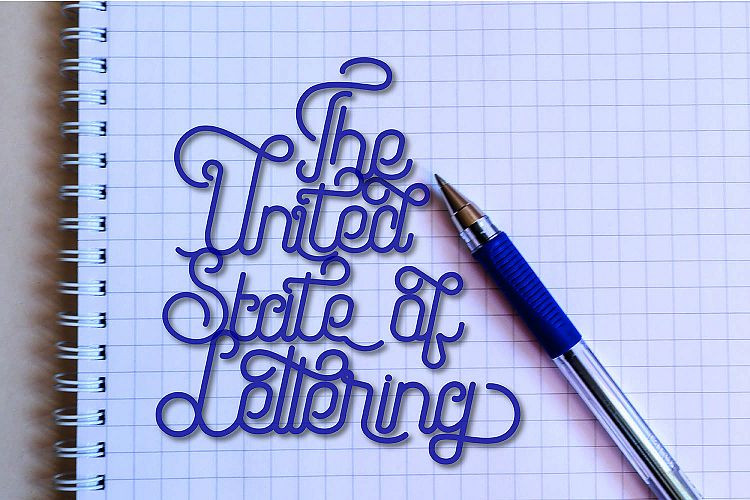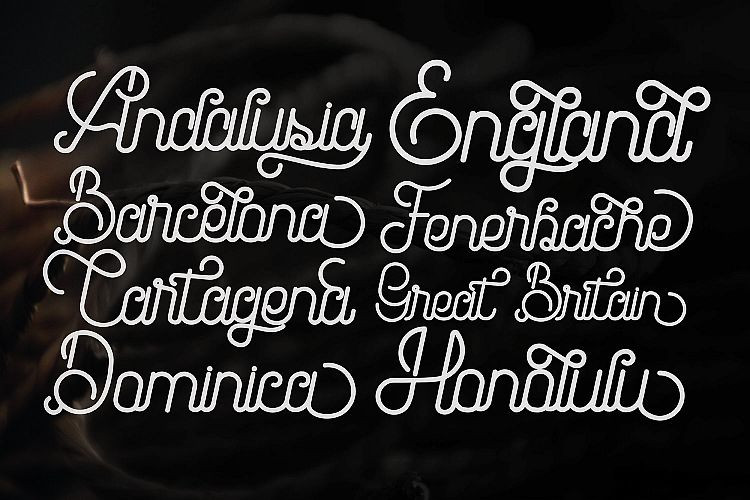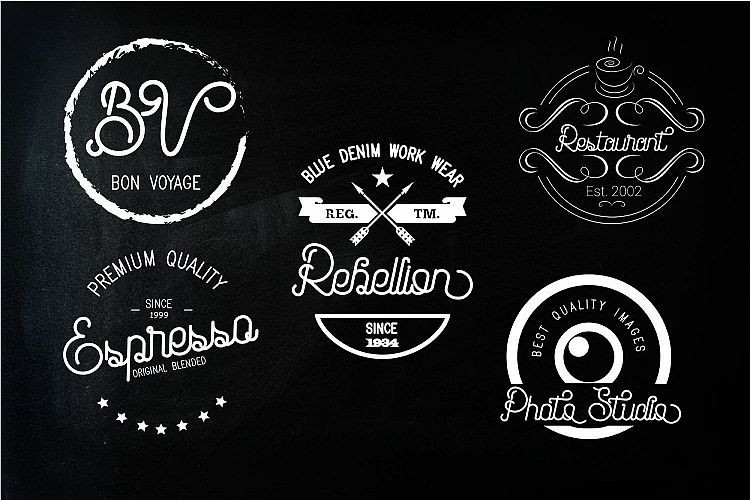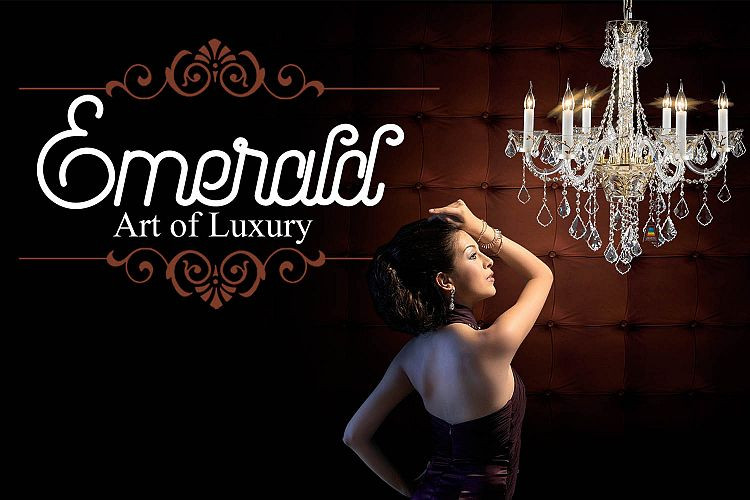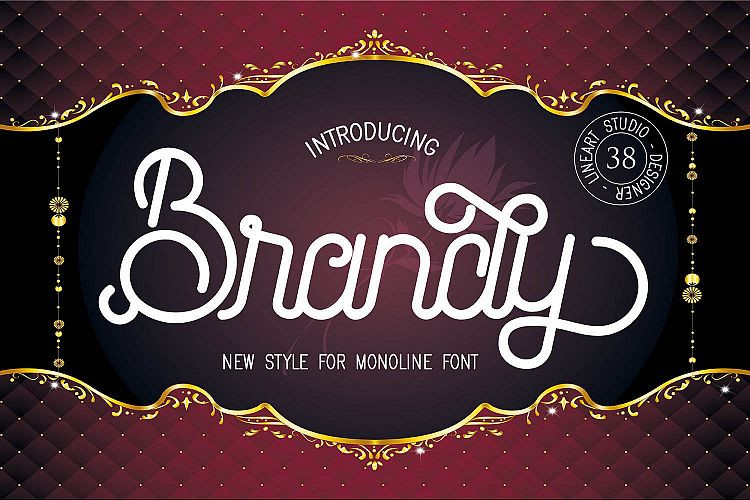
Brandy Monoline Font Duo
Say hello to Brandy Monoline Font Duo. This is a monoline font duo which has been inspired by the typography style. This vintage font family is composed by a mono weight cursive script and a complementary sans-serif. It is designed and shared by 38-lineart. The Brandy font consists of two types, script and sheriff, and we call it a monoline duo. Brandy Script comes with two versions, the clean version and the natural version.
Although this font application makes an impression of ellegan and also a vintage and retro impression. Brandy Script has lots of glyphs, main Glyphs supported 11 Stylisticset lowercase letters and 1 StailisticSet uppercase letters, both clean and natural versions. This font is also equipped with numerald and punchtuation, standard ligature and multilanguage.